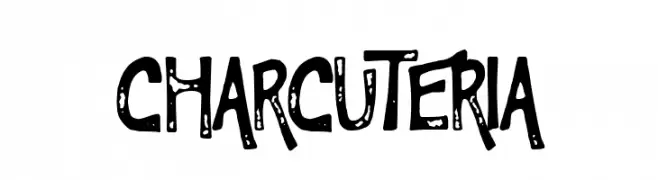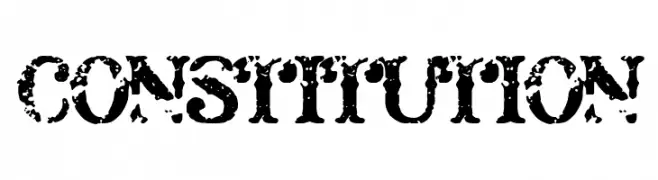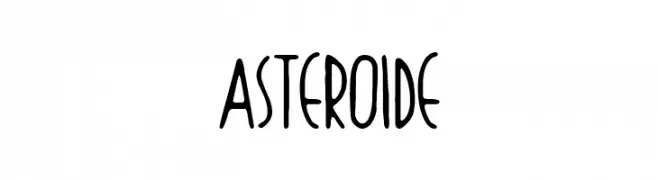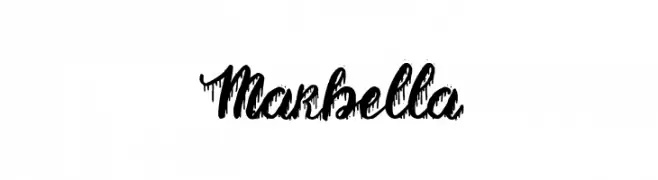
Pirate-themed decorative dingbat font with detailed icons.
A bold, geometric font with a three-dimensional, industrial style.
A bold, distressed font with a vintage, rugged appearance.
A distressed, grungy font with a bold, eroded appearance.
A bold, angular font inspired by ancient runic alphabets.
A decorative icon font featuring hand-drawn planets and celestial bodies.
A glitchy, distorted font with a digital error aesthetic.
A bold, distressed font with a vintage, handcrafted feel.
A playful, hand-drawn font with decorative dots and irregular strokes.
A distressed serif font with a vintage, rugged appearance.
A bold, distressed font with a gritty, splattered effect.
A bold, distressed font with splattered, grunge-style characters.
Tall, narrow handwritten sans-serif with playful irregularity.
A bold, dripping script font with a horror or grunge aesthetic.
Outlined geometric sans-serif with tall, narrow forms and rounded corners.
A bold, decorative font with playful patterns and a lively style.